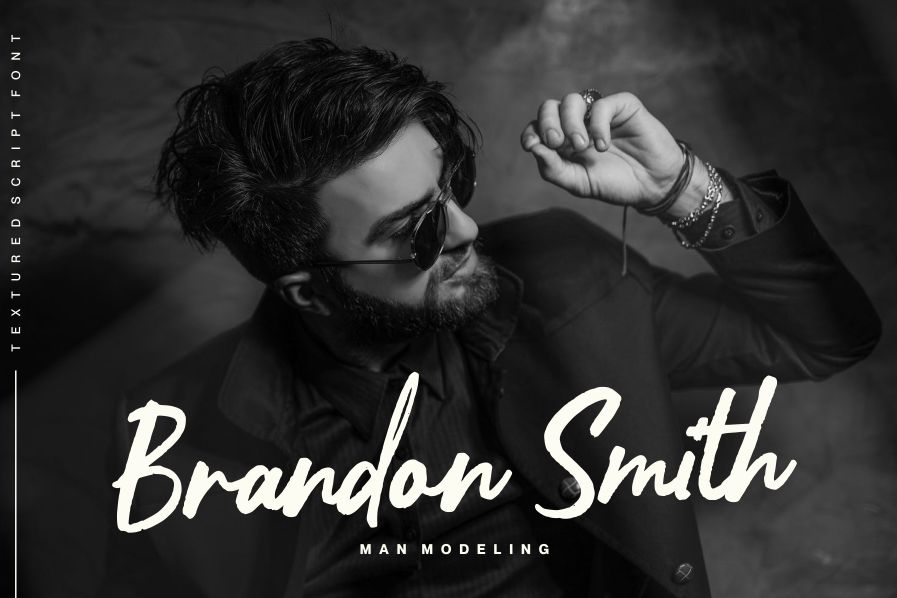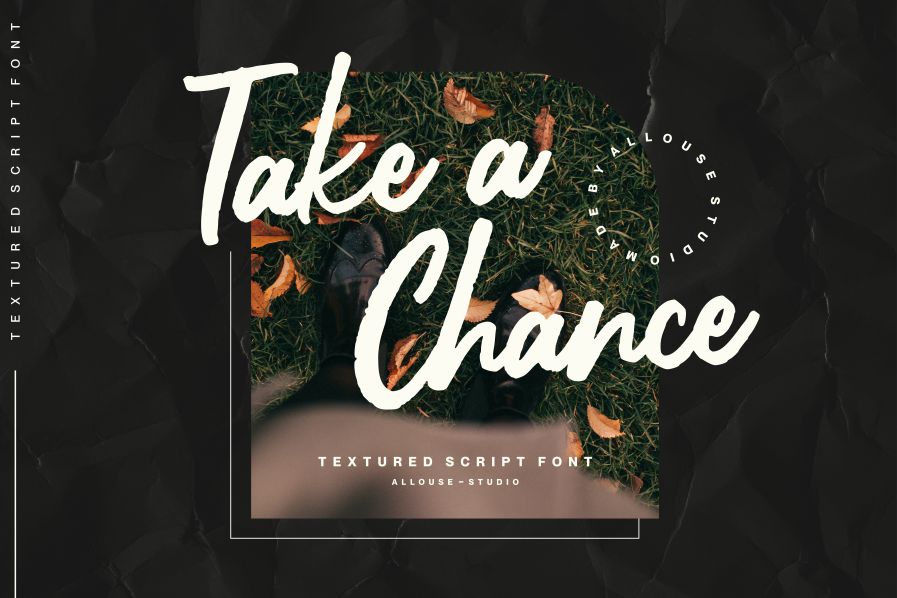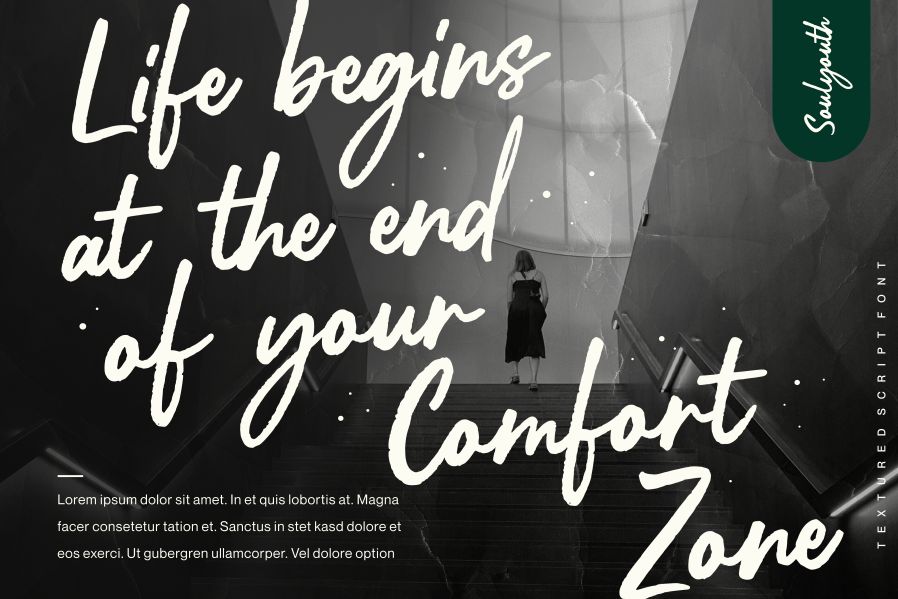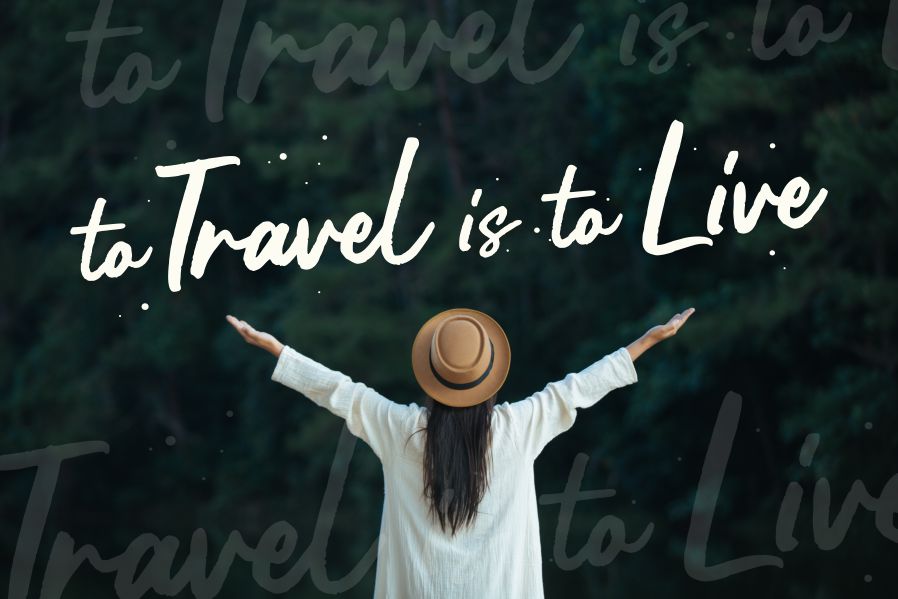
Soulyouth Font
Soulyouth Script Font
This is a beautiful, well balanced and vintage styled script font. It is defined by smooth curves and is perfect for fashion branding or editorial designs. Add it confidently to your projects, and you will love the results.